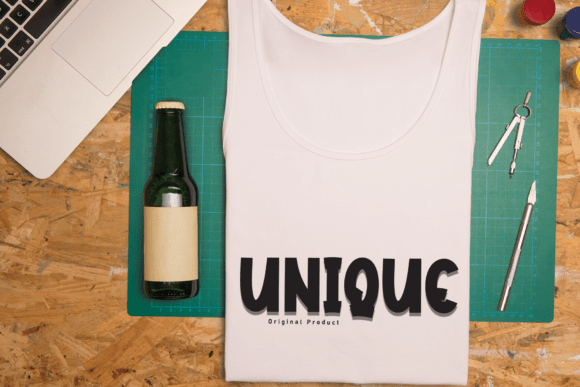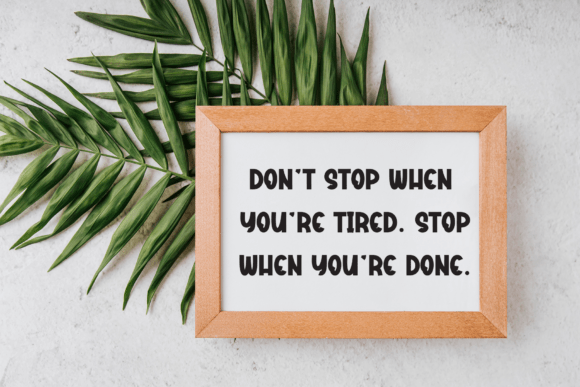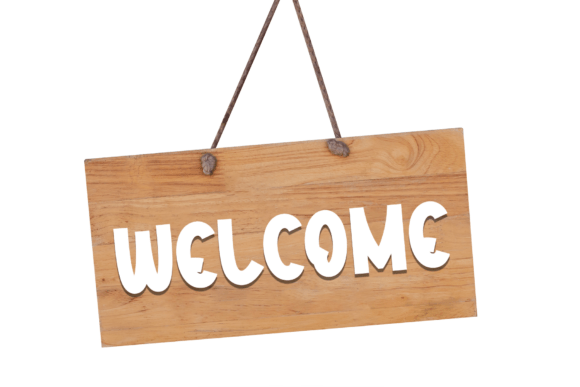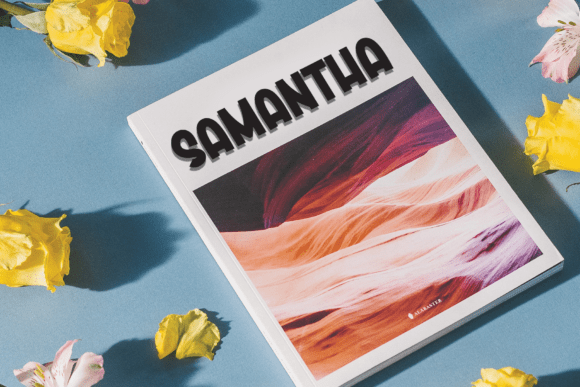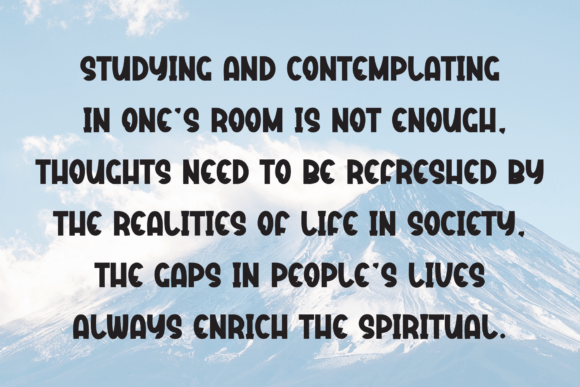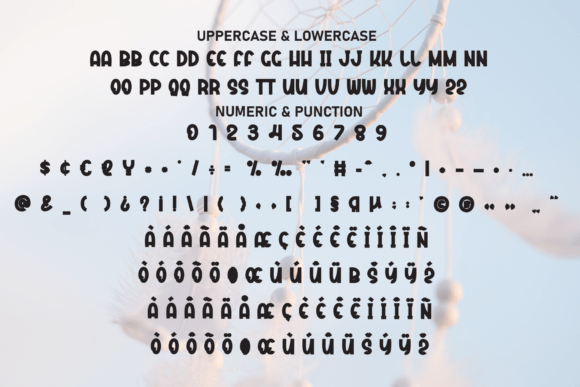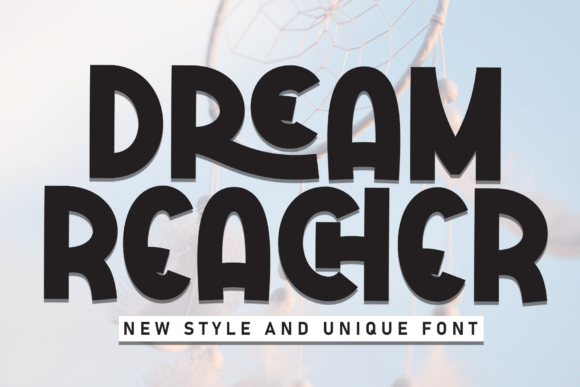
Dream Reacher Font: Adding a Touch of Whimsy and Charm to Your Designs
Are you tired of using the same old fonts for your designs? Do you want to add a dash of personality and charm to your projects? Look no further than the Dream Reacher Font, a charming and approachable handwritten display font that exudes warmth and friendliness. In this article, we’ll take a closer look at this delightful font and explore its features, uses, and benefits.
What is Dream Reacher Font?
Dream Reacher Font is a beautifully crafted handwritten display font that is designed to bring a touch of whimsy and mirth to your designs. With its delightfully cute and playful style, this font is perfect for crafters and designers who want to add a personal touch to their projects. Whether you’re creating wedding invitations, greeting cards, or any other design that needs a bit of flair, Dream Reacher Font is the perfect choice.
Features of Dream Reacher Font
So, what makes Dream Reacher Font so special? Here are just a few of its key features:
- Handwritten style: Dream Reacher Font has a beautifully handwritten style that gives it a personal and approachable feel.
- Playful and whimsical: This font is designed to bring a dash of whimsy and mirth to your designs, making it perfect for projects that need a bit of fun and personality.
- Warm and friendly: The font’s warm and friendly style makes it perfect for creating designs that need to convey a sense of approachability and charm.
- Versatile: Dream Reacher Font can be used for a wide range of design projects, from wedding invitations and greeting cards to posters, flyers, and more.
Uses of Dream Reacher Font
So, what can you use Dream Reacher Font for? The possibilities are endless! Here are just a few ideas to get you started:
- Wedding invitations: Add a touch of romance and whimsy to your wedding invitations with Dream Reacher Font.
- Greeting cards: Create beautifully designed greeting cards for birthdays, holidays, and other special occasions.
- Posters and flyers: Use Dream Reacher Font to create eye-catching posters and flyers that grab attention and convey a sense of fun and personality.
- Social media graphics: Add a touch of whimsy and charm to your social media graphics with Dream Reacher Font.
Benefits of Using Dream Reacher Font
So, why should you choose Dream Reacher Font for your designs? Here are just a few benefits of using this delightful font:
- Adds personality and charm: Dream Reacher Font adds a touch of personality and charm to your designs, making them stand out from the crowd.
- Easy to read: Despite its playful style, Dream Reacher Font is easy to read and understand, making it perfect for designs that need to convey a message.
- Versatile: This font can be used for a wide range of design projects, making it a great addition to your font library.
- Unique: Dream Reacher Font is a unique and distinctive font that will help your designs stand out from the crowd.
In conclusion, Dream Reacher Font is a charming and approachable handwritten display font that exudes warmth and friendliness. With its delightfully cute and playful style, this font is perfect for crafters and designers who want to add a personal touch to their projects. Whether you’re creating wedding invitations, greeting cards, or any other design that needs a bit of flair, Dream Reacher Font is the perfect choice. So why not give it a try and see how it can elevate your designs to the next level?